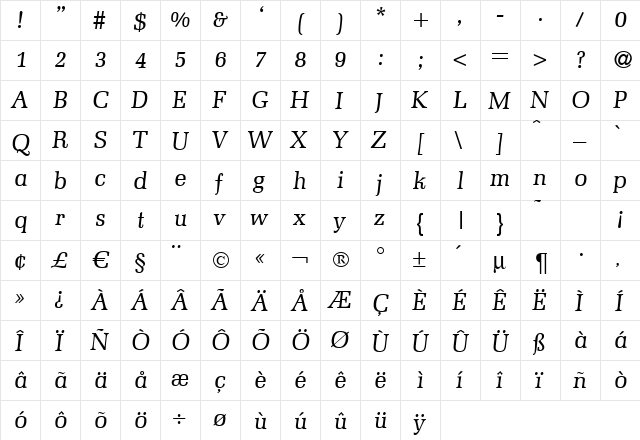
Melmac Italic
Design Context for Melmac Typeface
Melmac offers clean, dependable letterforms without strong stylistic allegiance, making it a practical choice for designers who need flexibility. The dynamic lean of this cut emphasises speed and emphasis in any layout.
Pro Tip: Try Melmac for annotation and caption copy alongside an upright companion — the contrast in angle creates a dynamic but ordered typographic system.